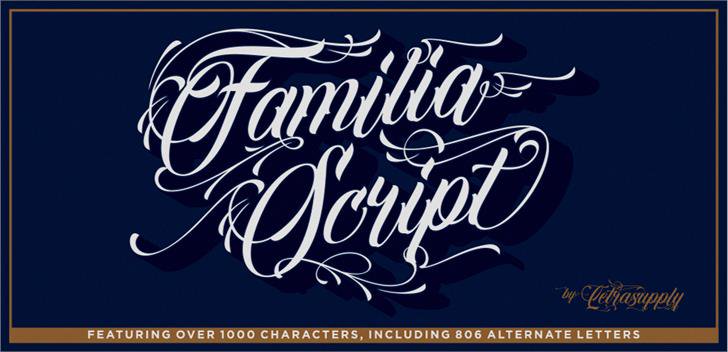
Free Familia Script Font
Introducing you to the absolutely beautiful free familia script font. This free typeface file was found from the amazing source called Font Space. This is absolutely fancy font so you can easily make world-class designs.